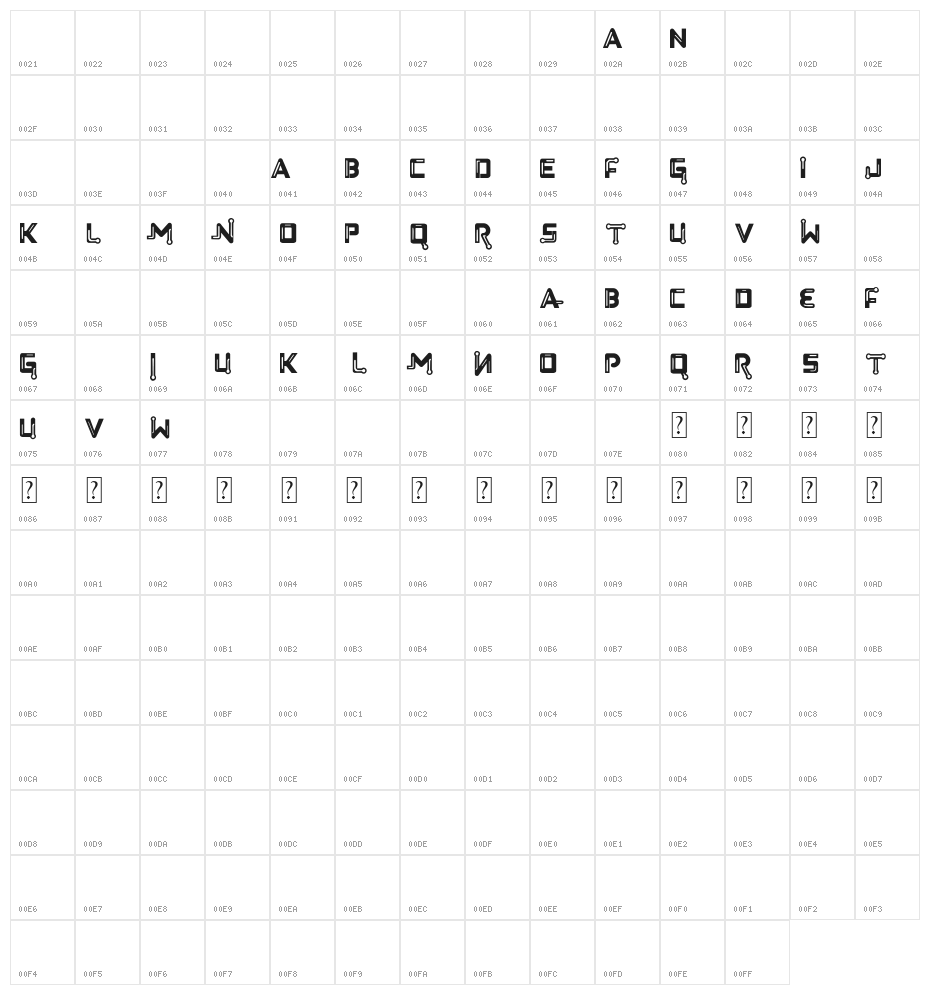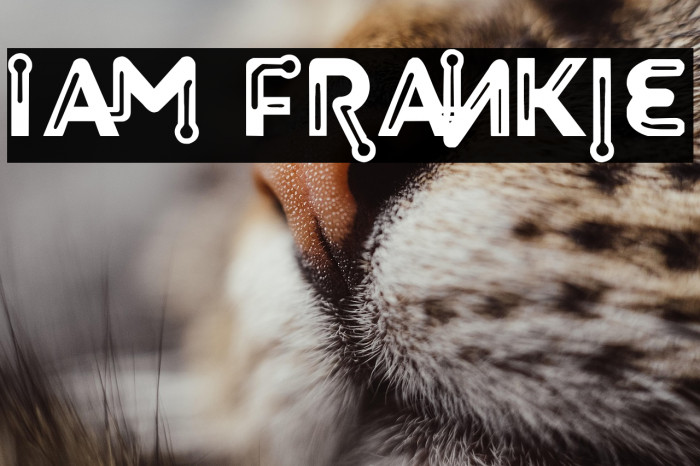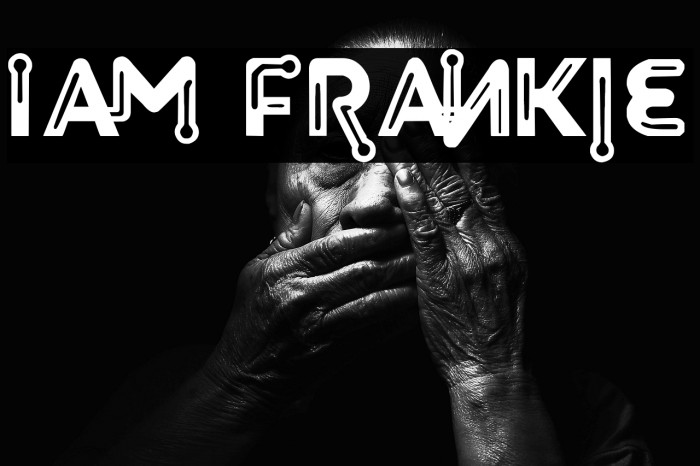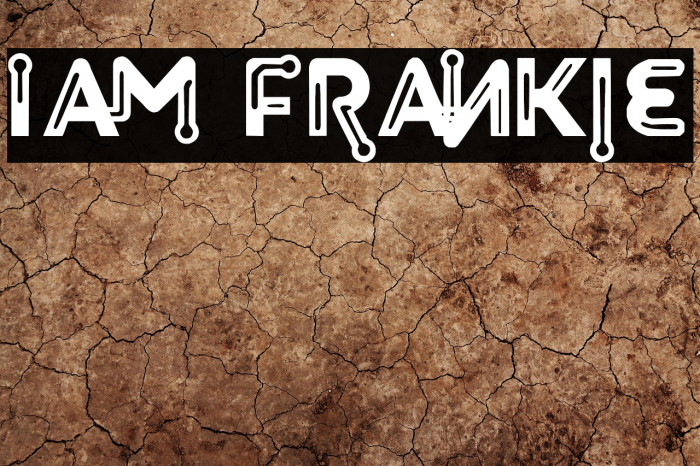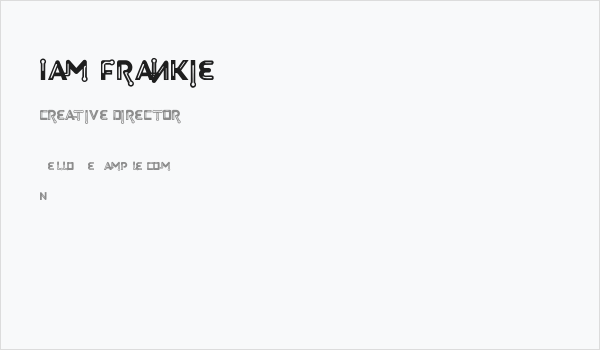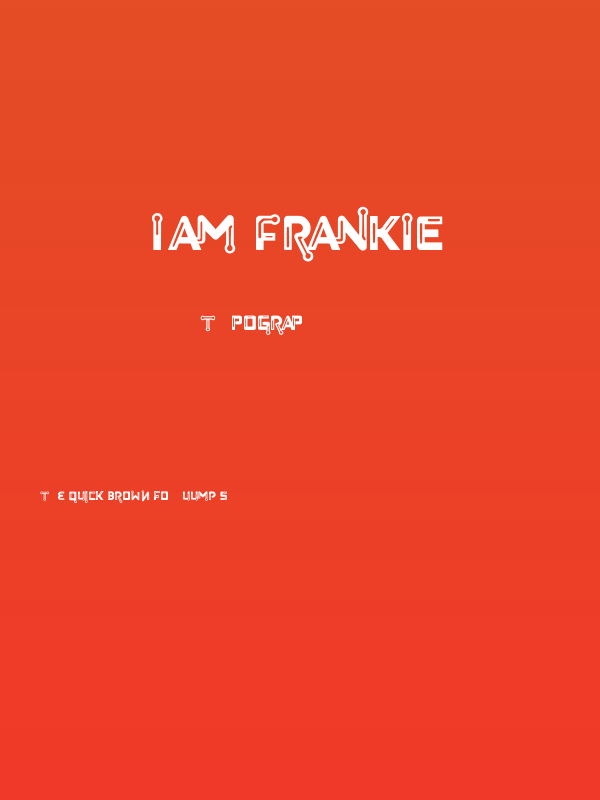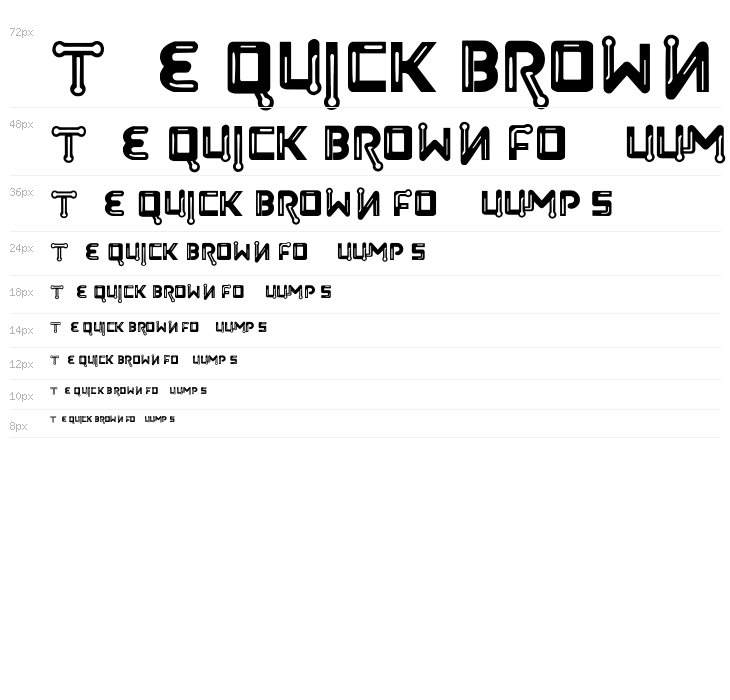
I Am Frankie Font
I Am Frankie Description
This font features a futuristic and mechanical design, characterized by its bold and geometric letterforms. Each character is crafted with a unique blend of solid and outlined segments, giving it a high-tech appearance. The font incorporates circuit-like elements, with lines and dots that mimic electronic connections, adding to its digital and modern aesthetic. The uppercase letters are particularly striking, with a consistent height and width that ensures readability while maintaining a distinct style. The font's design is both innovative and functional, making it suitable for projects that require a contemporary and technological feel.